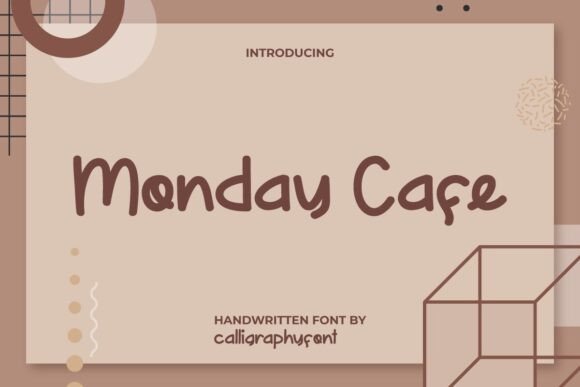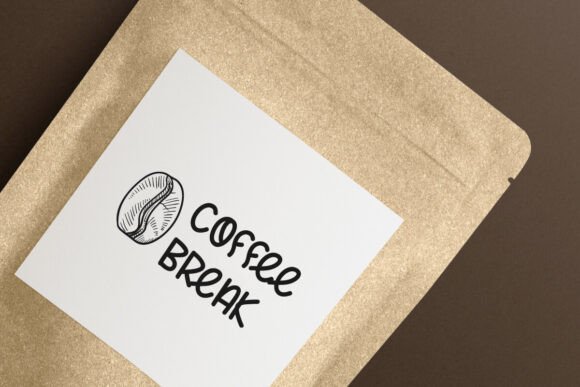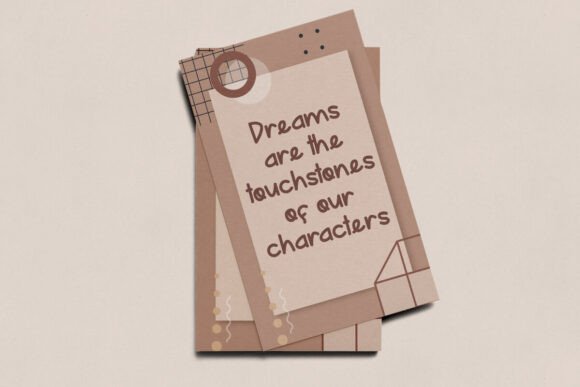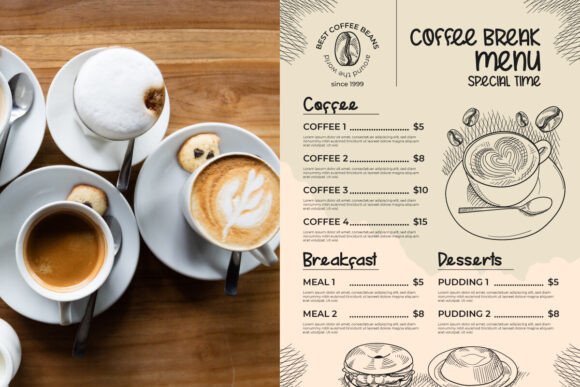
Monday Cafe Font
About the Monday Cafe Font
We are excited to introduce Monday Cafe Font, a must-have typeface for any serious designer. Monday Cafe Font is a fun cartoon handwritten font with a relaxed and handmade touch. This is a wonderful original handcrafted font inspired by coffee beans, making the letters unique in their own way. The font creates its own hand-drawn appeal but is still very easy to read due to its simple shape. It will be efficient as brochure, header, headline, label, logos, menu sheet, mockup template, poster, product packaging, quotes, stationery, sticker, title text or work in the form of small paragraphs, watermarks, website, various advertising purposes, of course it will be of artistic value for your design.
Monday Cafe Font is a fun handwritten font with a slightly rounded style that’s here to make some cool custom typography creations. It is designed to show how versatile and creative it will be in whatever background your next business takes, for example bakery and pastry, cafeteria, coffee shop, event organizer,  fashion, film, food and beverage brands, graphic design, handicrafts, homeware, hotel, interior design, movie, photography, printing, publishing, restaurant, toy store, writer, and more.
Monday Cafe Font Usage Examples
Monday Cafe Font Example